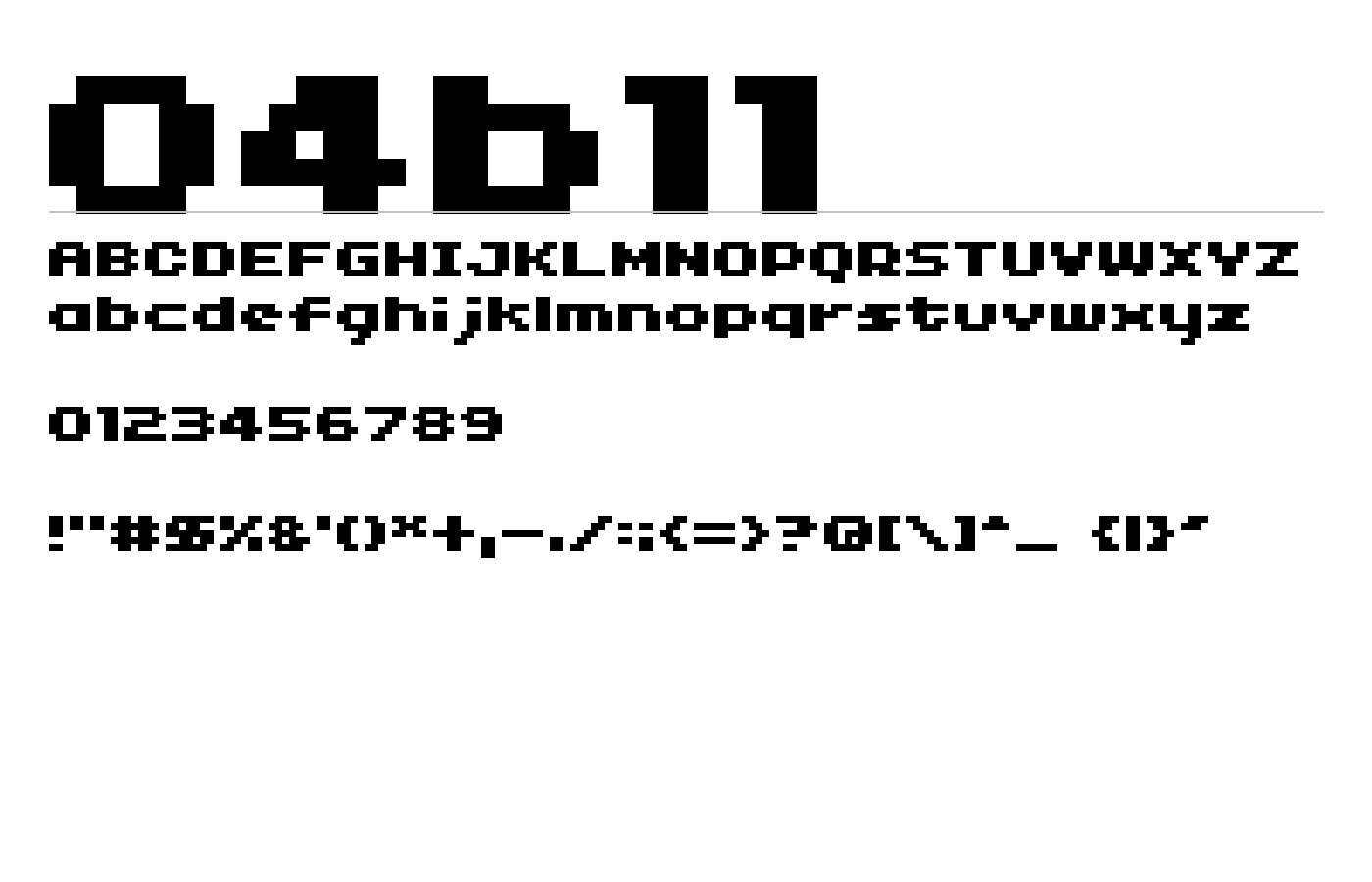
04b11 is a bold, pixel-inspired sans serif font with a strong monospaced, blocky appearance. Its rigid, low-resolution style evokes retro digital screens or arcade games, making it ideal for designs aiming to capture a nostalgic, techy, or playful vibe. It works perfectly in digital-themed projects, gaming interfaces, and headlines that require a clear, distinctive pixelated look.
04b11 Font
About 04b11 Font